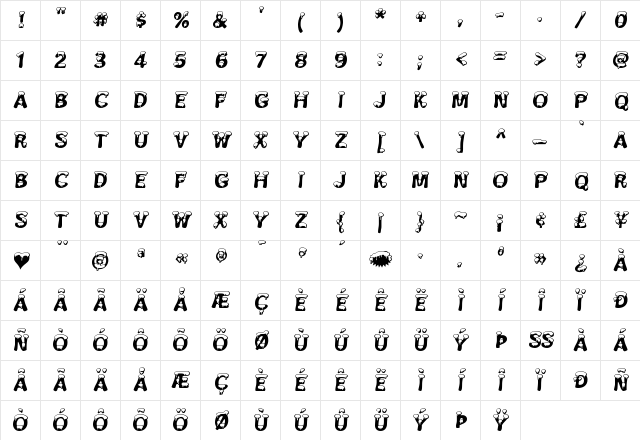
Snowa Snow Free Font
Snowa Snow
Style: Snow
Design Context for Snowa
Snowa is a composed and adaptable typeface that performs quietly and consistently across a wide range of design contexts.
Pro Tip: Use Snowa in both headline and body roles to test its range before committing to a single application.